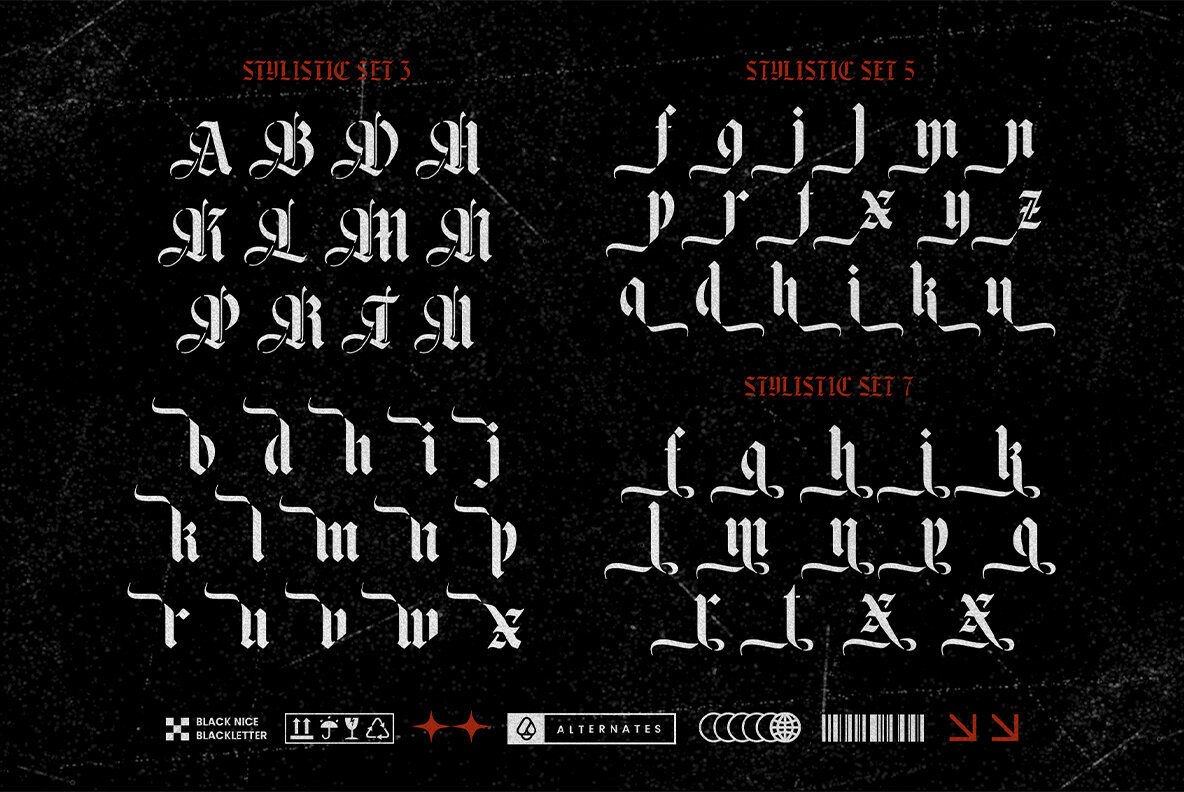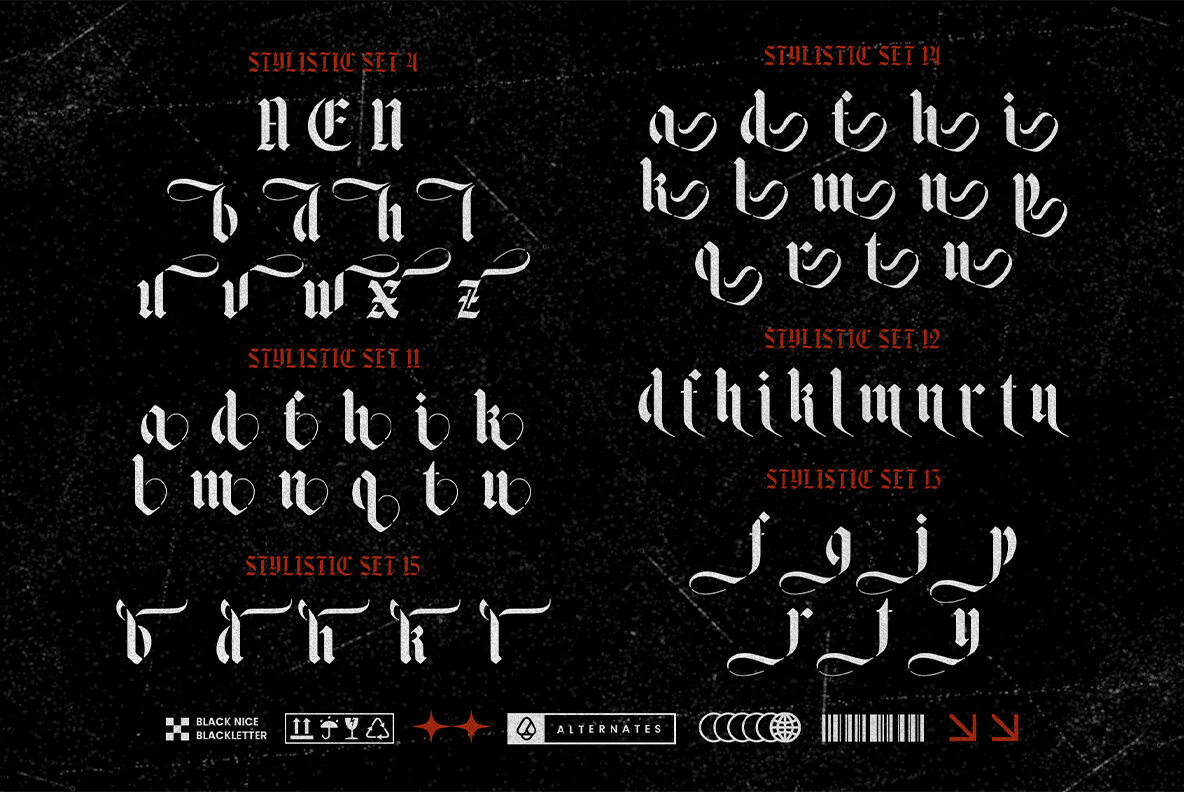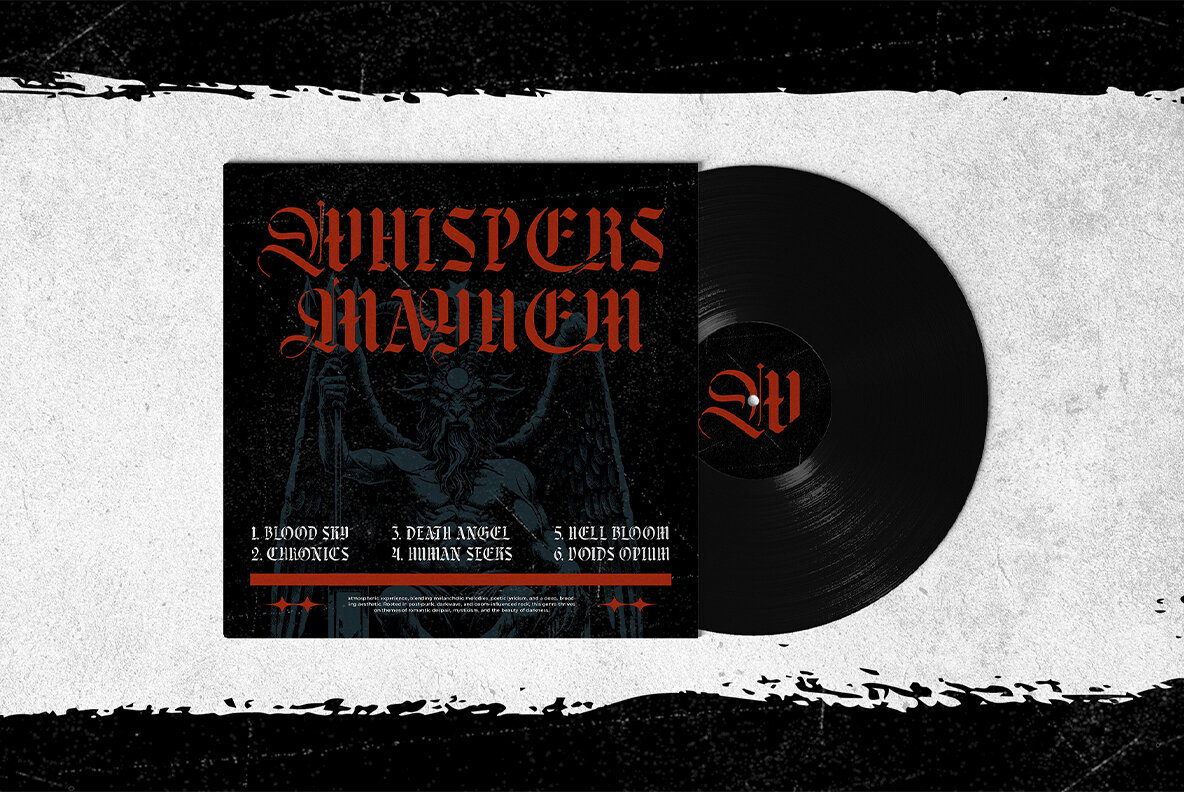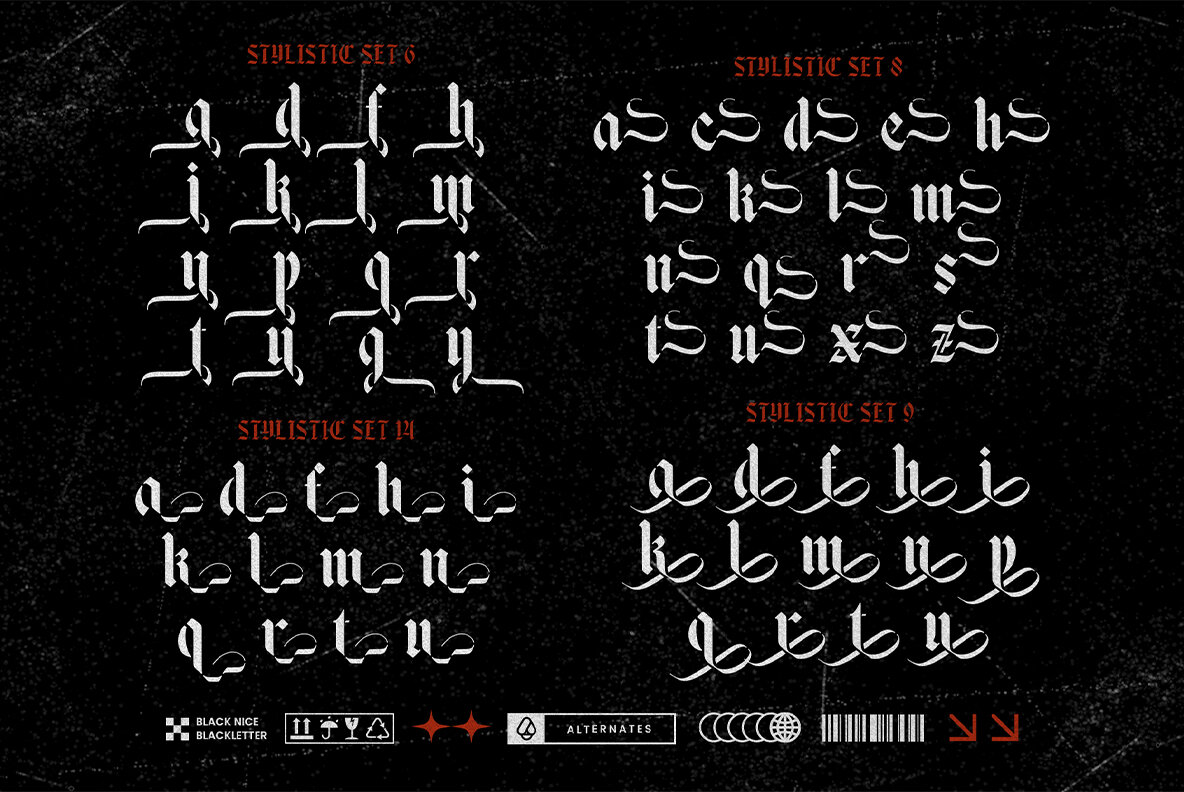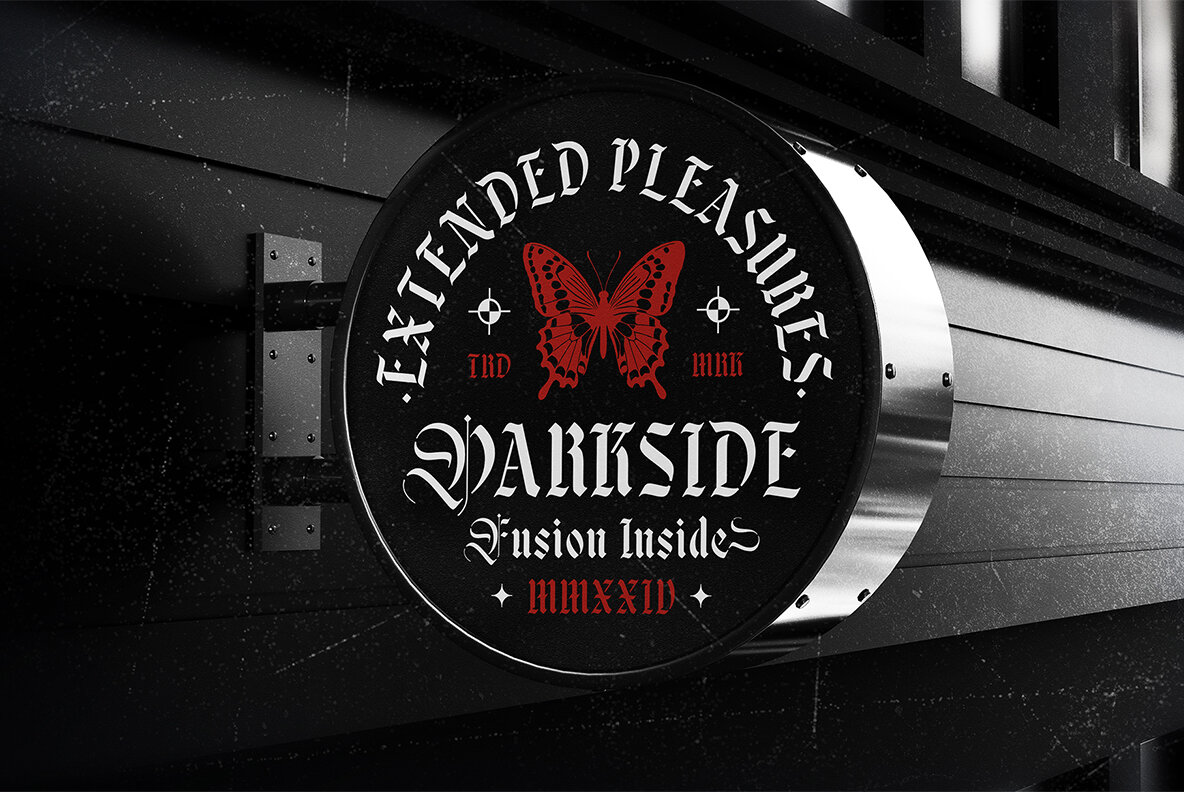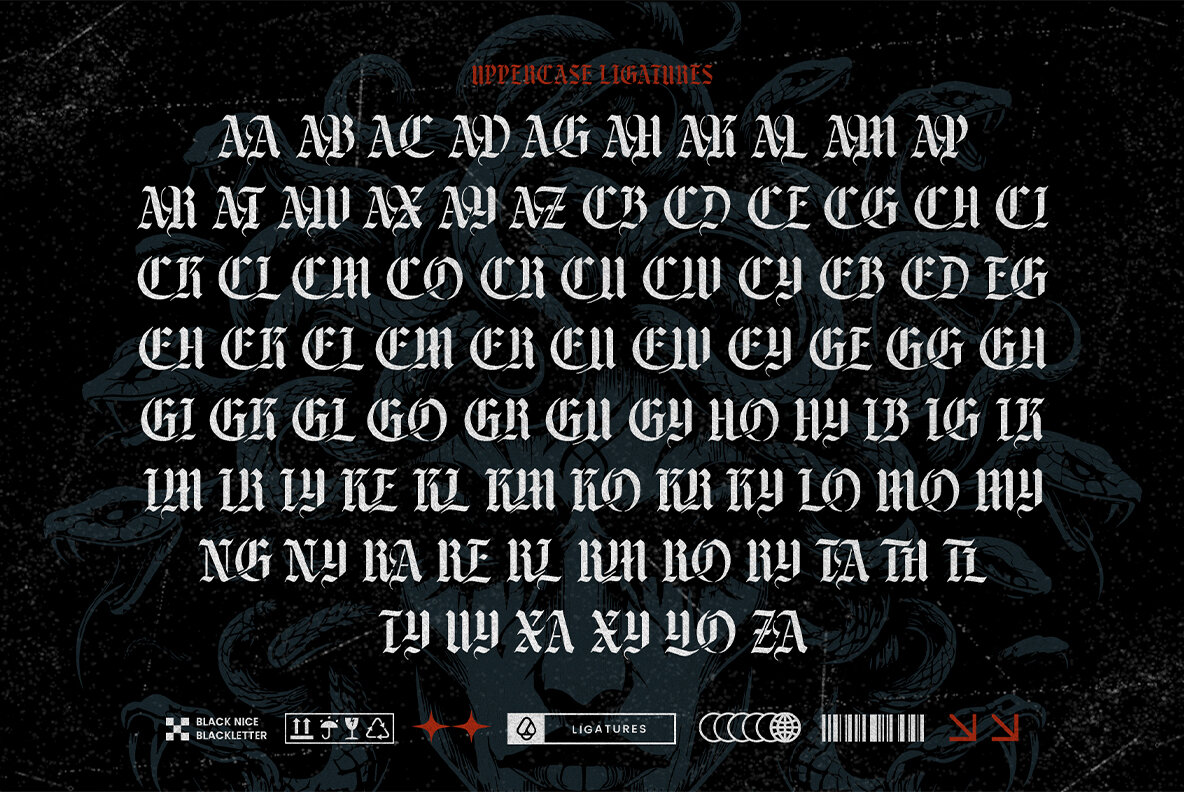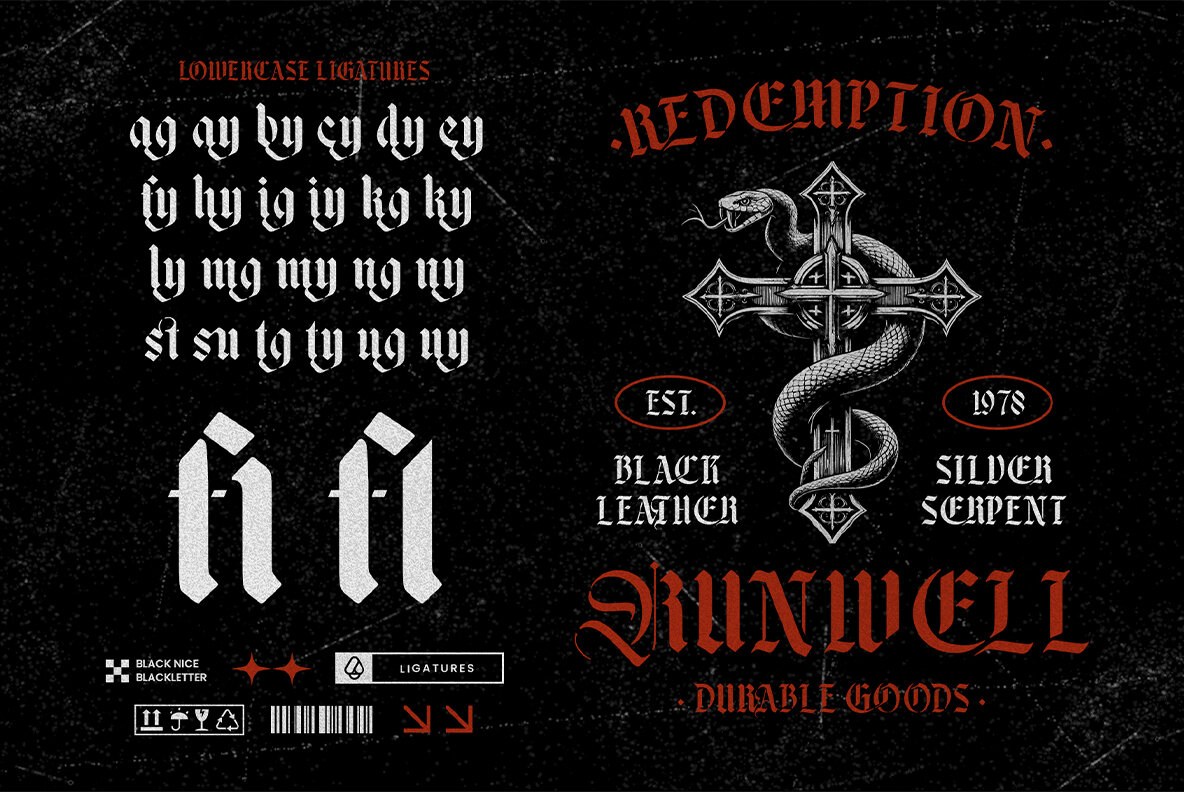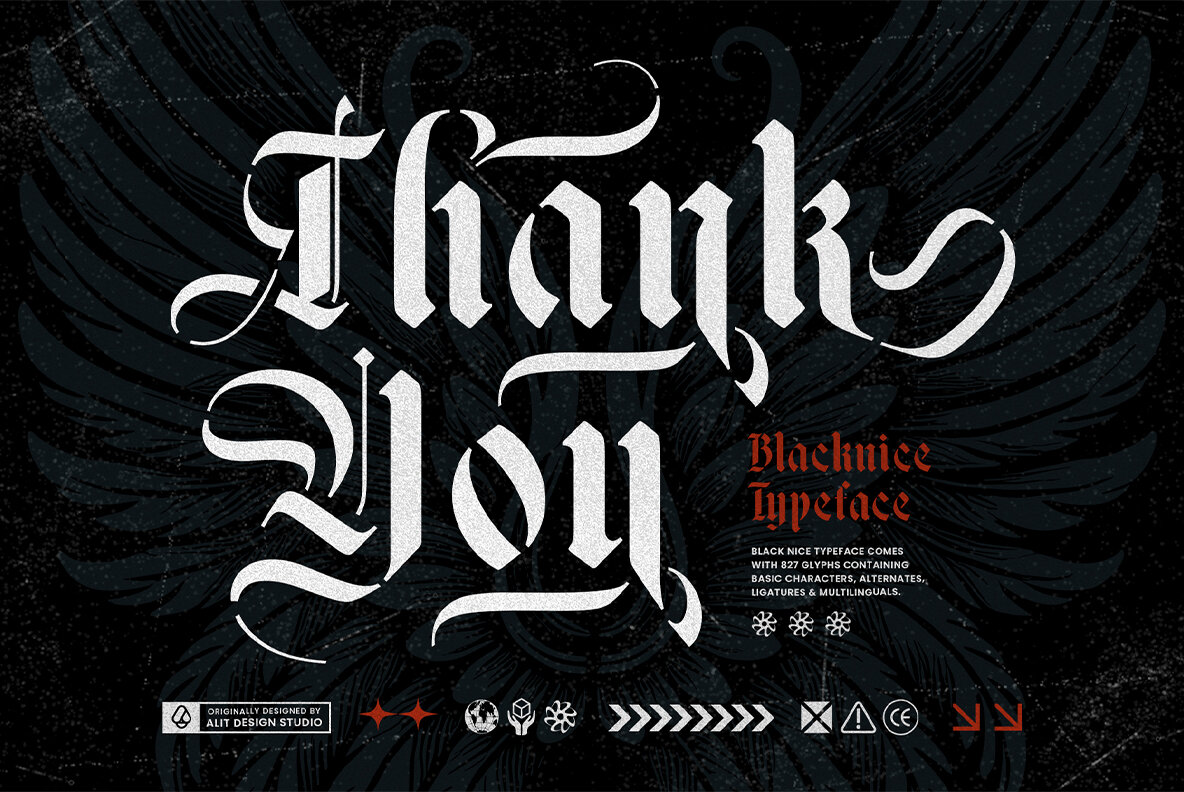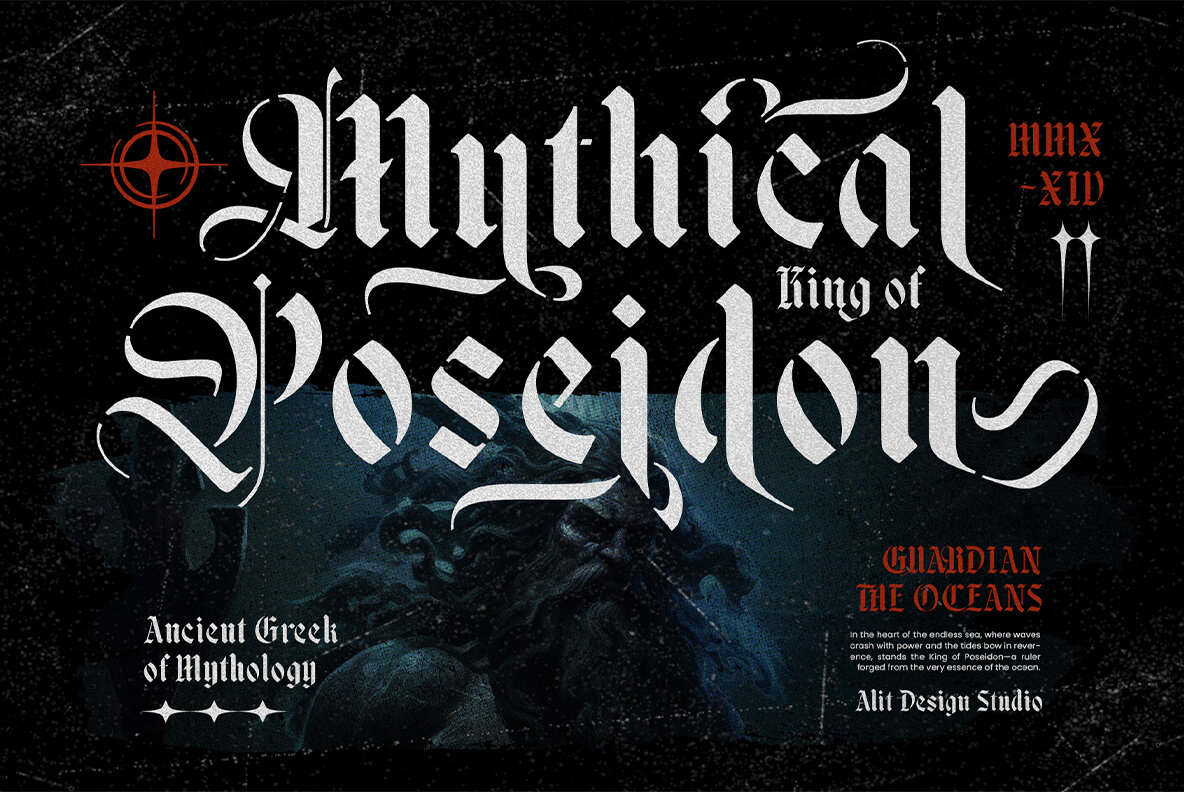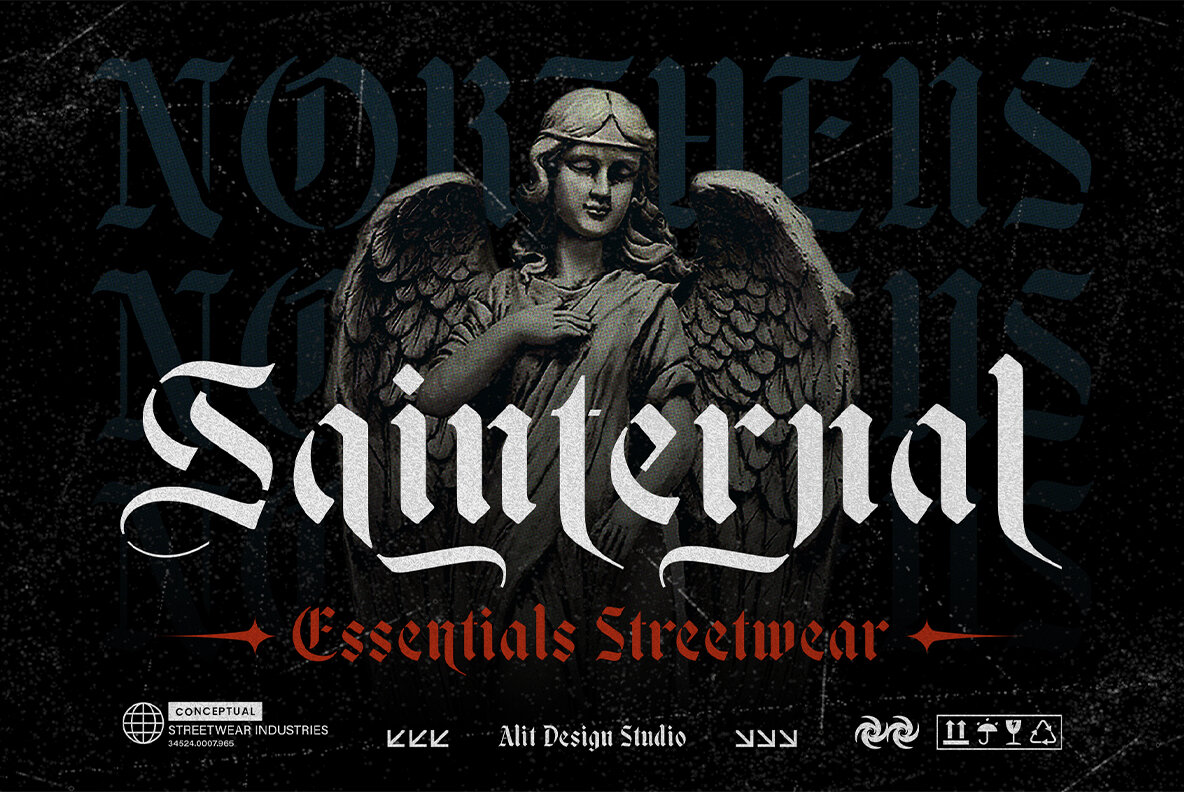
Black Nice Font
Black Nice Regular
Black Nice Typeface is a bold and unique blend of blackletter elegance and stencil precision, designed to make your typography stand out. Perfect for branding, apparel, posters, tattoos, packaging, or editorial projects, it combines a vintage gothic style with contemporary stencil aesthetics. The typeface offers optimal readability, maintaining the intricate beauty of traditional blackletter forms and integrating stencil-inspired cutouts with meticulously calculated curves and gaps to preserve each letter’s structural integrity. This makes it an excellent choice for both print and digital media.
The font boasts a massive character set of 822 glyphs, featuring uppercase and lowercase letters, numbers, punctuation, and special characters. It includes custom alternates and swashes to give your text a unique flair and decorative touches. Naturally flowing ligatures enhance the text’s beauty, offering a handcrafted appearance. The perfectly engineered stencil cuts ensure maximum legibility and visual balance, even at smaller sizes. Thanks to PUA encoding, all characters and swashes are accessible without extra software, and the typeface works seamlessly with Adobe, Corel, Affinity, and other design software.
Black Nice Typeface supports multiple languages, including English, Spanish, German, French, and Italian, making it ideal for international branding projects. Use it to create bold visual identities in branding and logos, add gothic or tattoo-inspired touches to apparel and merchandise, or craft high-impact headlines for posters and flyers. It also suits historical, fantasy, or dark-themed editorial and book cover designs, as well as giving packaging and labels a premium, handcrafted feel. Black Nice Typeface empowers you to create bold, intricate, and timeless designs for a wide range of modern and vintage-inspired projects.